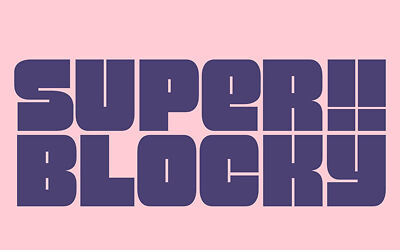
Blocky is a bold, unique Blocky Free Font for your next project! This geometric display typeface features a striking, modular design with rounded corners, perfect for gaming, posters, and impactful headlines. Blocky includes Cyrillic and Latin alphabets, numbers, and symbols, making it a versatile choice for designers.